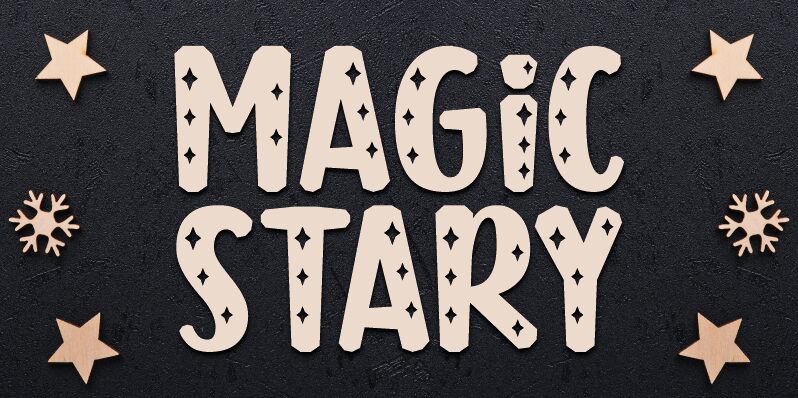
Introducing Magic Stary, a bold and decorative starry font designed by Iwan Kristiaman Nazara, Jasman Nazara, and Situjuh Nazara. Perfect for projects calling for a unique and eye-catching look, Magic Stary is sure to make your design stand out. Use it in posters, book covers, logo designs and other creative projects.